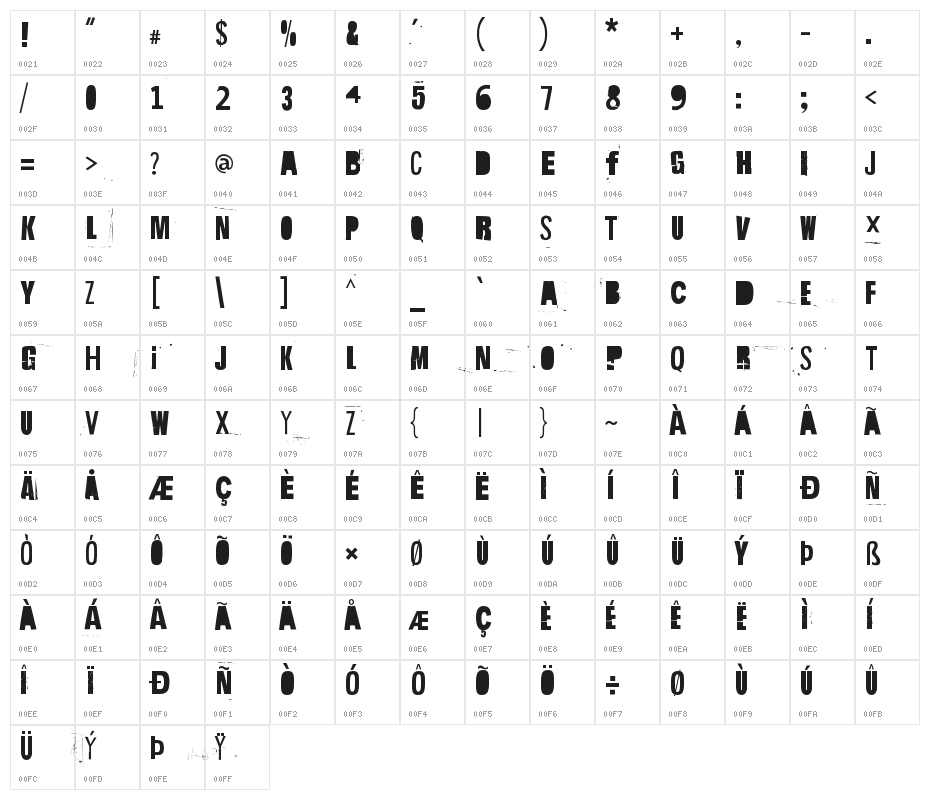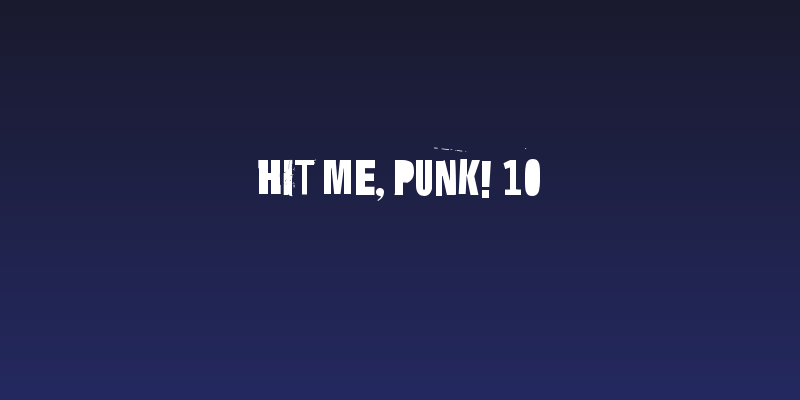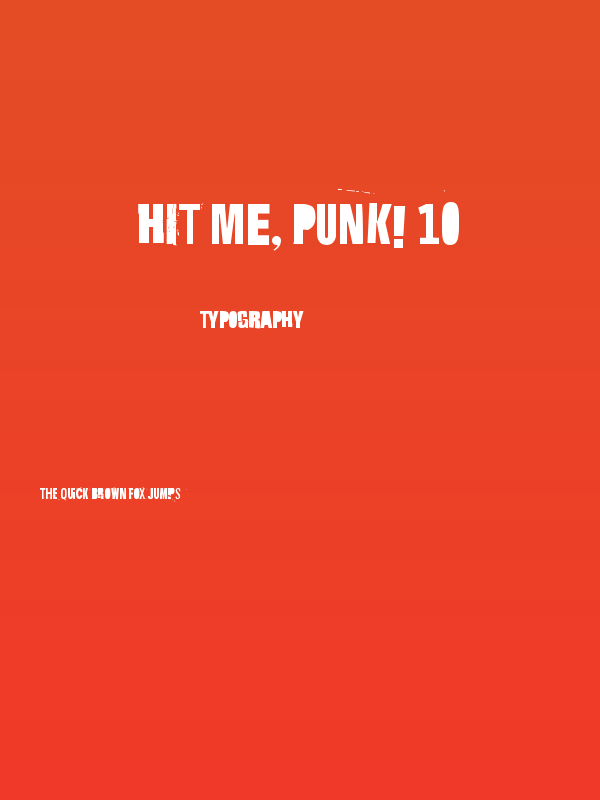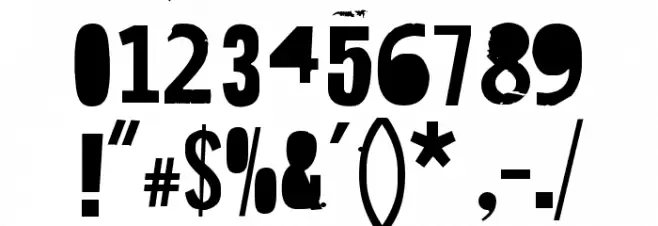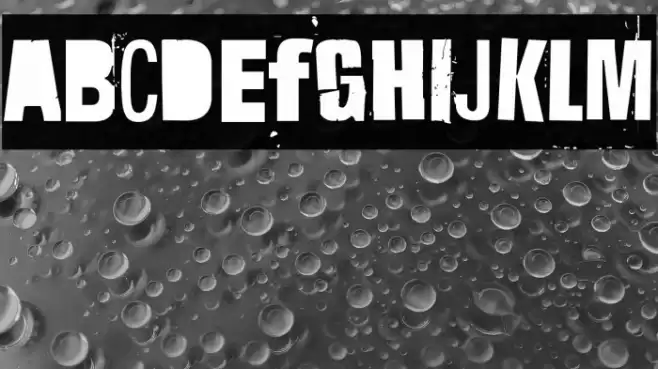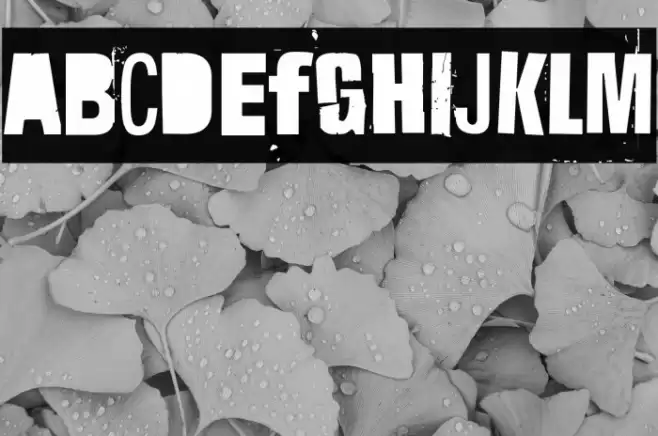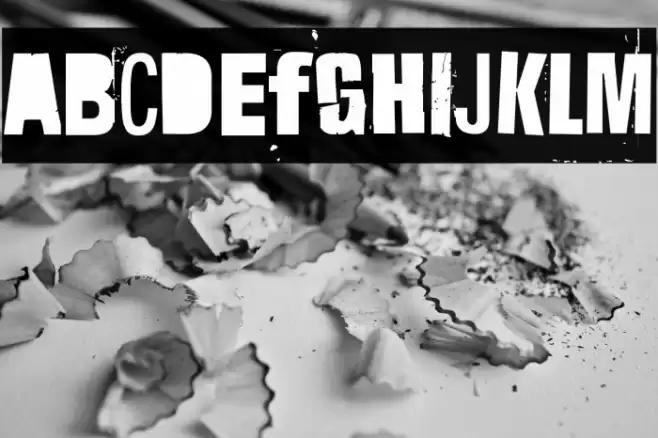
Hit me, punk! 10 Font
This font features a bold, distressed style with a gritty, urban aesthetic. The characters are heavily textured, giving them a worn and rugged appearance, reminiscent of street art or punk rock posters. The uppercase and lowercase letters maintain a consistent boldness, while the numerals and special characters follow suit with the same distressed effect. The font's design is highly decorative, making it stand out with its unique, rebellious charm. It's perfect for projects that aim to capture an edgy, unconventional vibe.
| Proposed Projects | Ideal for music album covers, punk-themed posters, streetwear branding, and edgy graphic design projects. |